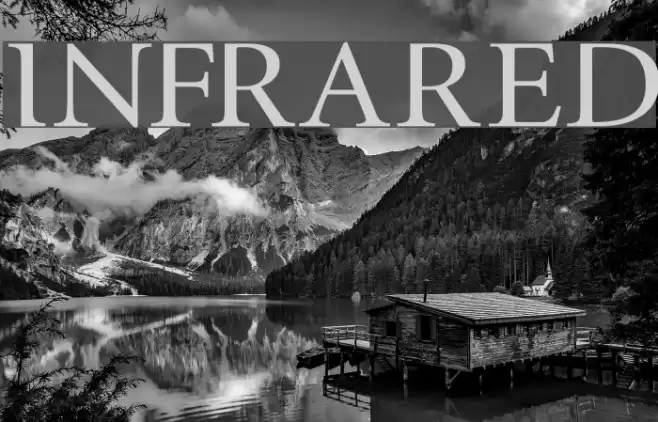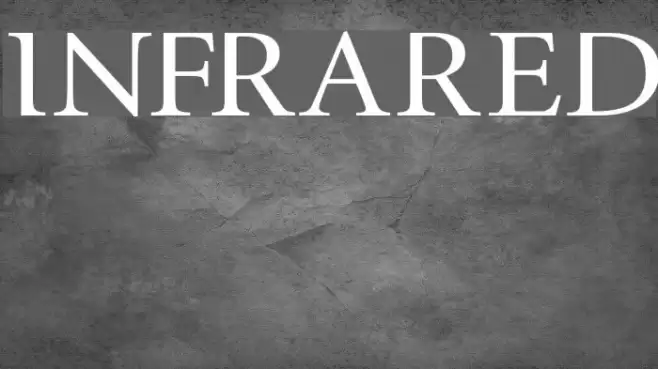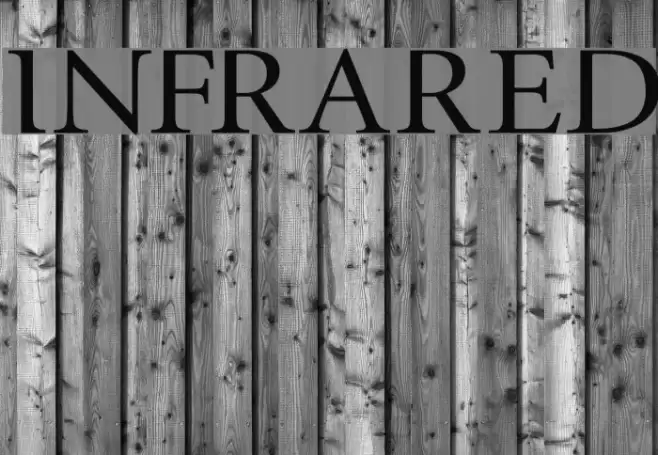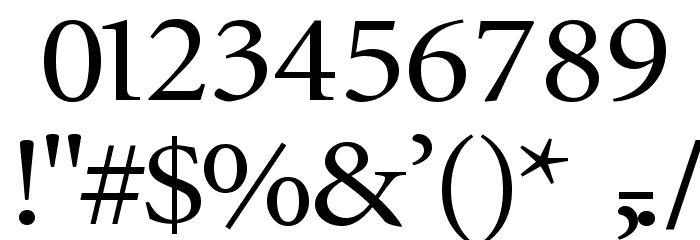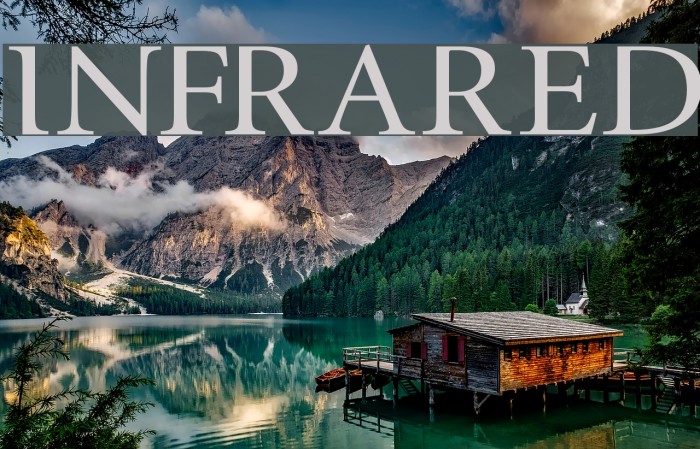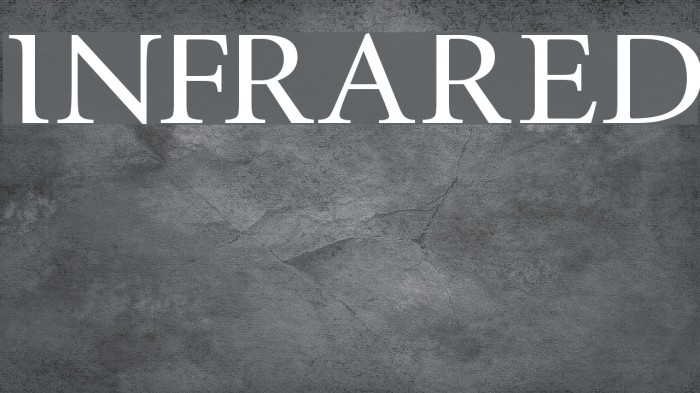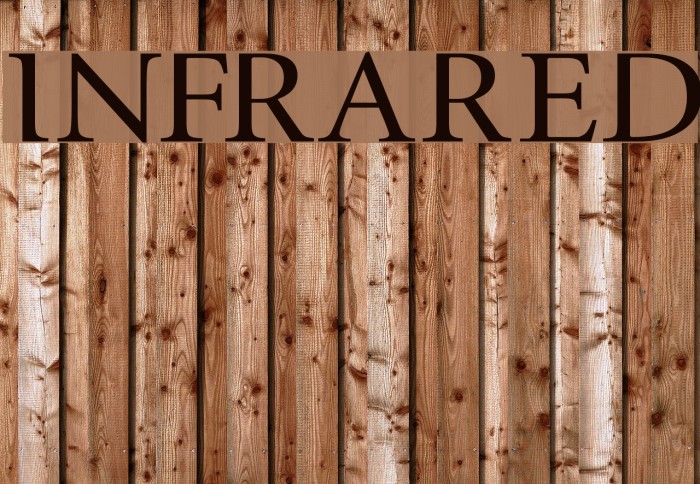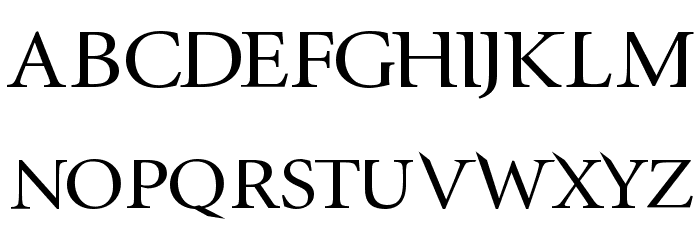
InfraRed Font
InfraRed Description
This font features a classic serif style with elegant and sharp serifs that give it a sophisticated and timeless appearance. The uppercase letters are bold and commanding, while the lowercase letters maintain a consistent and harmonious flow. The numerals are clear and distinct, making them easily readable. Special characters are well-defined, adding versatility to the font. The overall design is balanced, with a medium contrast between thick and thin strokes, contributing to its readability and aesthetic appeal.
A classic serif font with elegant, sharp serifs and medium contrast from Uncategorized fonts.
- Proposed Projects: Ideal for editorial design, book covers, formal invitations, and branding projects that require a touch of elegance and tradition.
- Overall Style: Classic